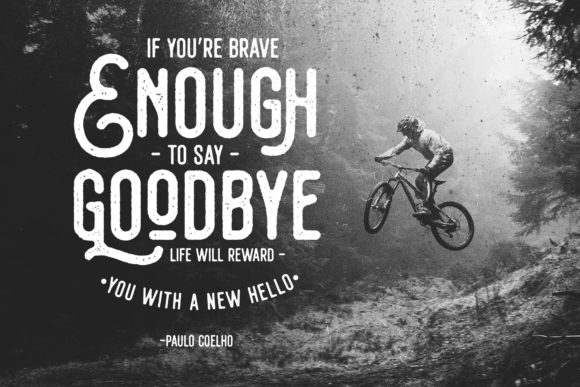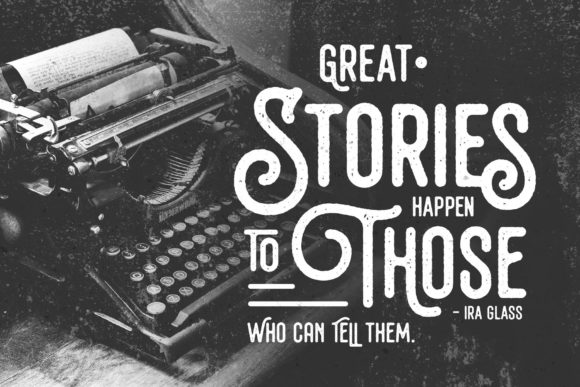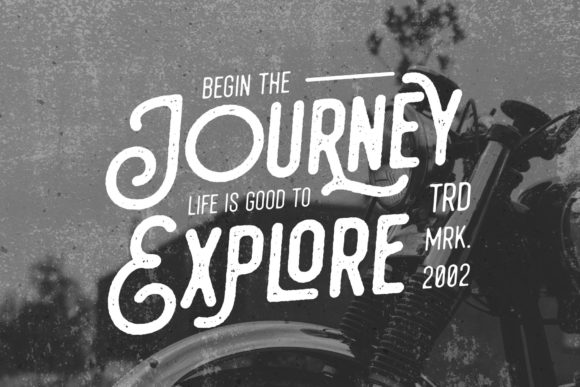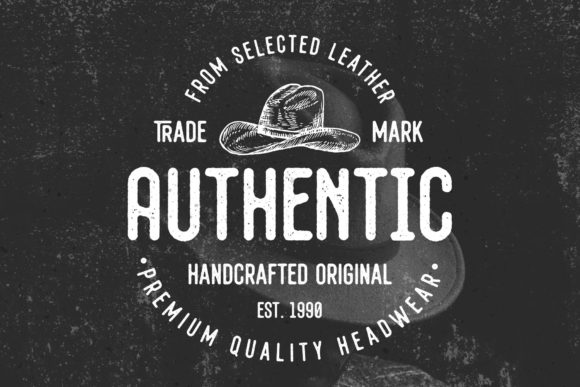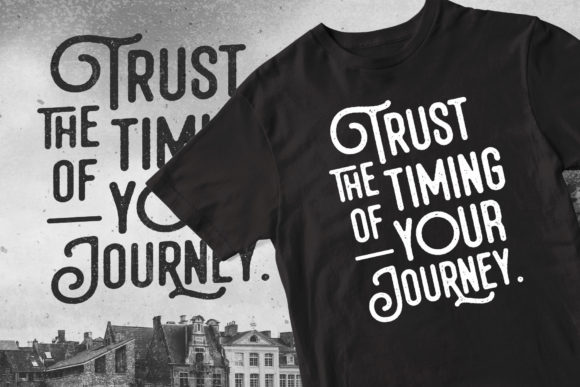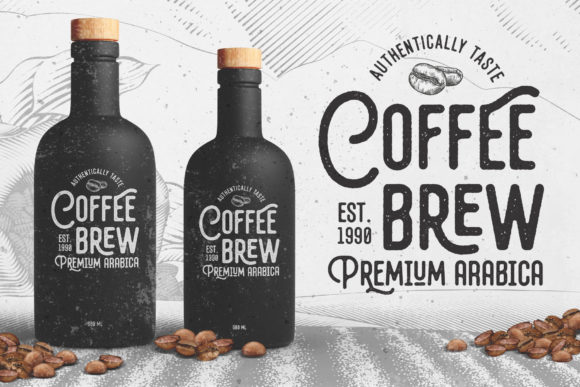
Bolandes Font
Bolandes is a vintage styled, cool and chic display font. It is perfect for logos, apparel, labels, posters, quotes, signage, packaging, and more! This font is PUA encoded which means you can access all of the glyphs and swashes with ease!